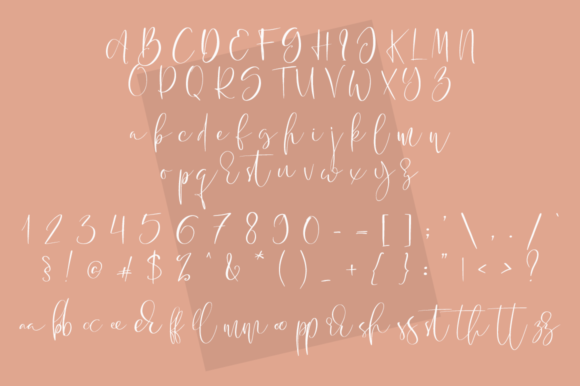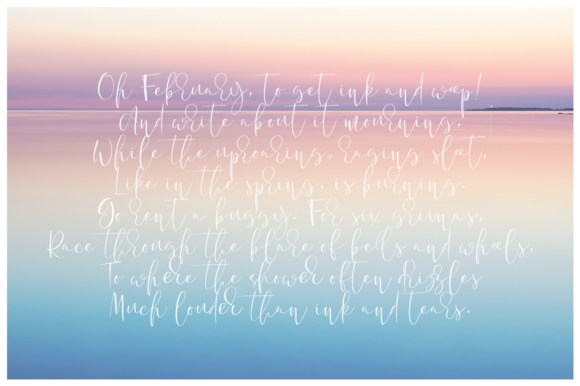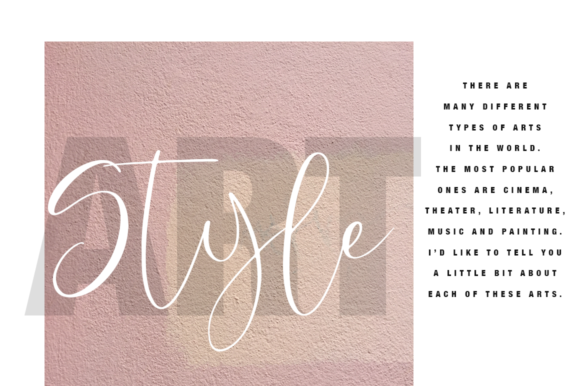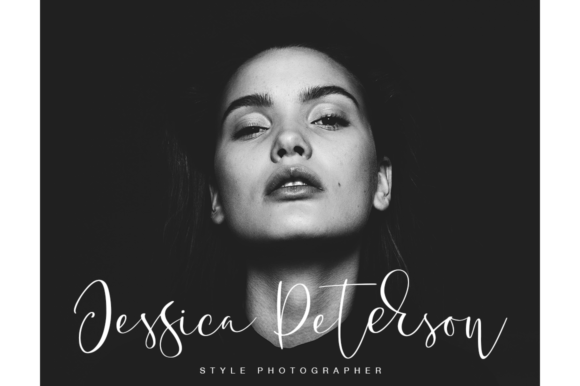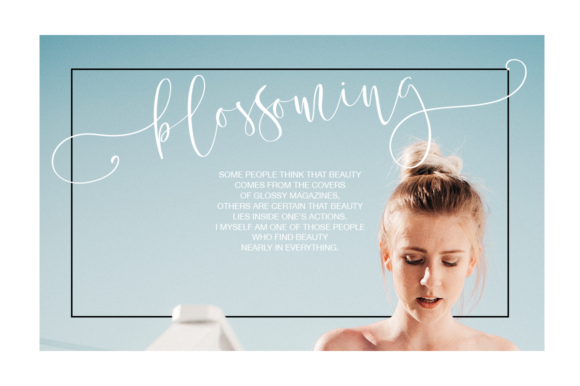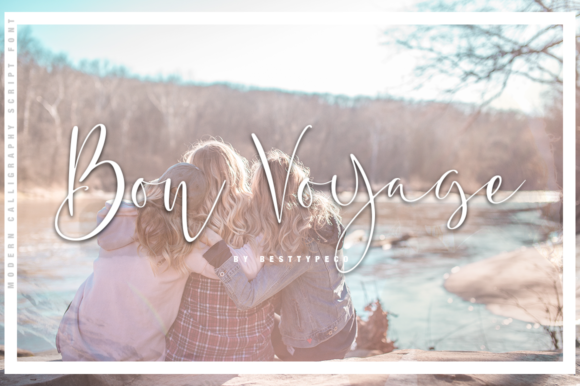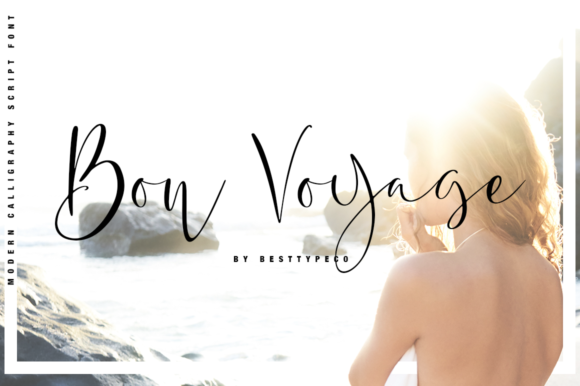
Introducing the Bon Voyage Font: A Fresh Handmade Calligraphy Font for Creative Projects
Are you a designer or crafter looking for a unique and elegant font to add a personal touch to your creative projects? Look no further than the Bon Voyage font, a fresh handmade calligraphy font that’s perfect for a variety of applications. In this article, we’ll take a closer look at the features and benefits of the Bon Voyage font, and explore how it can elevate your designs and crafting projects.
A Fresh and Elegant Handmade Calligraphy Font
The Bon Voyage font is a beautifully crafted handmade calligraphy font that’s designed to add a touch of elegance and sophistication to your projects. With its flowing lines and delicate curves, this font is perfect for creating beautiful and eye-catching designs that stand out from the crowd. Whether you’re working on a greeting card, branding materials, business cards, quotes, posters, or any other type of project, the Bon Voyage font is a great choice.
Key Features of the Bon Voyage Font
So what makes the Bon Voyage font so special? Here are some of its key features:
- Handmade with love: The Bon Voyage font is carefully crafted by hand, giving it a unique and personal touch that’s hard to find with digital fonts.
- Fresh and modern design: The font features a fresh and modern design that’s perfect for creating contemporary and stylish designs.
- Elegant and sophisticated: With its flowing lines and delicate curves, the Bon Voyage font adds a touch of elegance and sophistication to any project.
- Highly versatile: This font is suitable for a wide range of projects, from greeting cards and branding materials to business cards, quotes, posters, and more.
The Bon Voyage font is a great choice for designers and crafters who want to add a personal touch to their projects. Here are some ways you can use this font:
- Greeting cards: Create beautiful and unique greeting cards for special occasions like weddings, birthdays, and holidays.
- Branding materials: Use the Bon Voyage font to create elegant and sophisticated branding materials like logos, business cards, and letterheads.
- Quotes and posters: Create eye-catching quotes and posters that showcase your favorite inspirational quotes or messages.
- Crafting projects: Add a personal touch to your crafting projects like scrapbooking, journaling, and card making.
Why Choose the Bon Voyage Font?
So why should you choose the Bon Voyage font for your next project? Here are some reasons:
- Unique and original: The Bon Voyage font is a unique and original handmade calligraphy font that’s sure to stand out from the crowd.
- High-quality design: The Bon Voyage font features a high-quality design that’s perfect for printing and digital use.
In conclusion, the Bon Voyage font is a fresh handmade calligraphy font that’s perfect for designers and crafters who want to add a personal touch to their projects. With its elegant and sophisticated design, this font is suitable for a wide range of applications, from greeting cards and branding materials to quotes, posters, and more. Whether you’re looking for a unique and original font to stand out from the crowd, or simply want to add a touch of elegance and sophistication to your designs, the Bon Voyage font is a great choice.